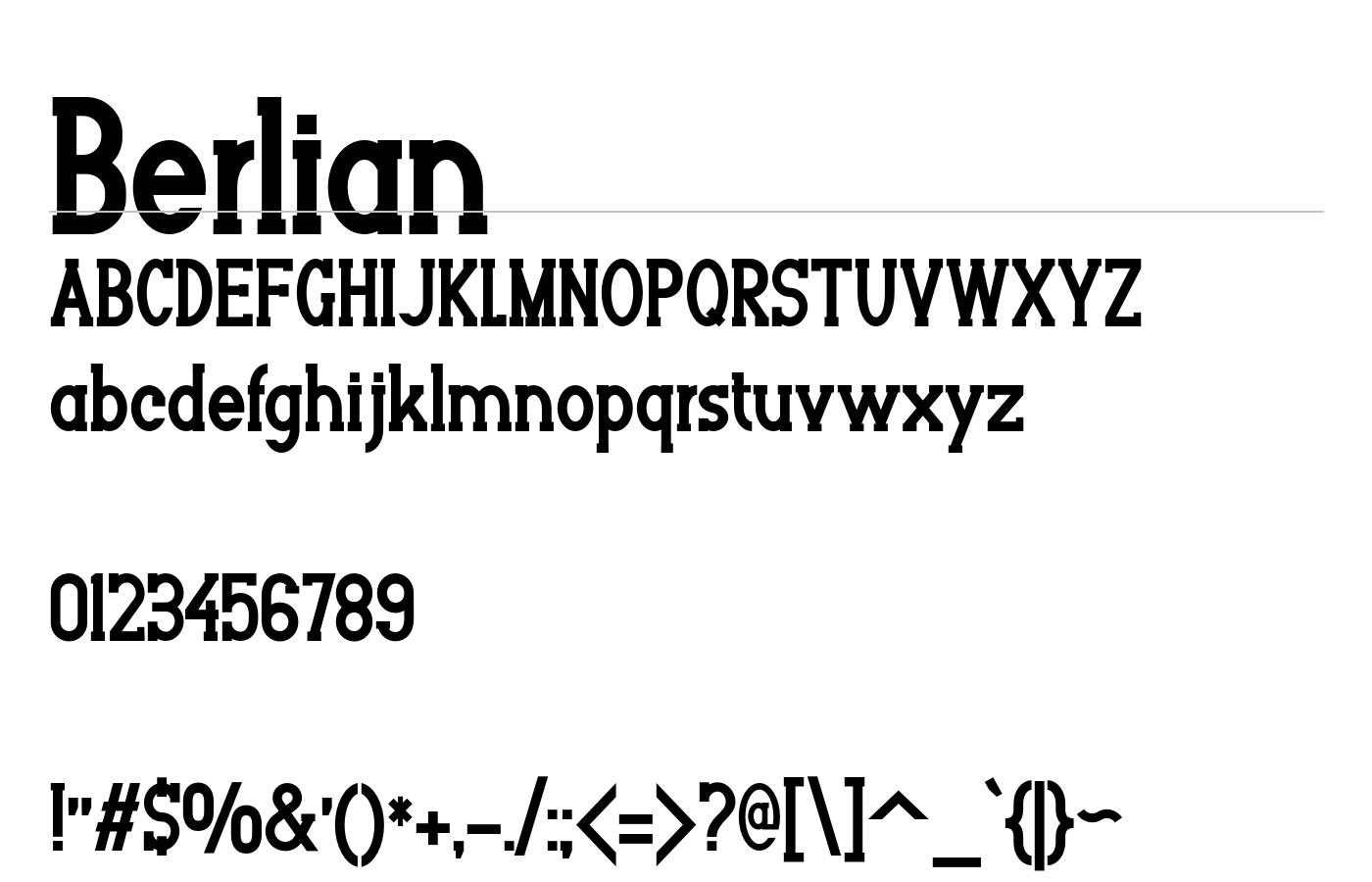
Berlian Font is a bold slab serif typeface with a strong, condensed structure and medium contrast between thick and thin strokes. Its sturdy serifs and compact letterforms give it a confident, vintage-inspired personality, making it ideal for creating impactful headlines, logos, and editorial designs where a classic yet commanding presence is needed. This font works well in contexts that require bold readability combined with a touch of traditional charm.
Berlian Font
About Berlian Font